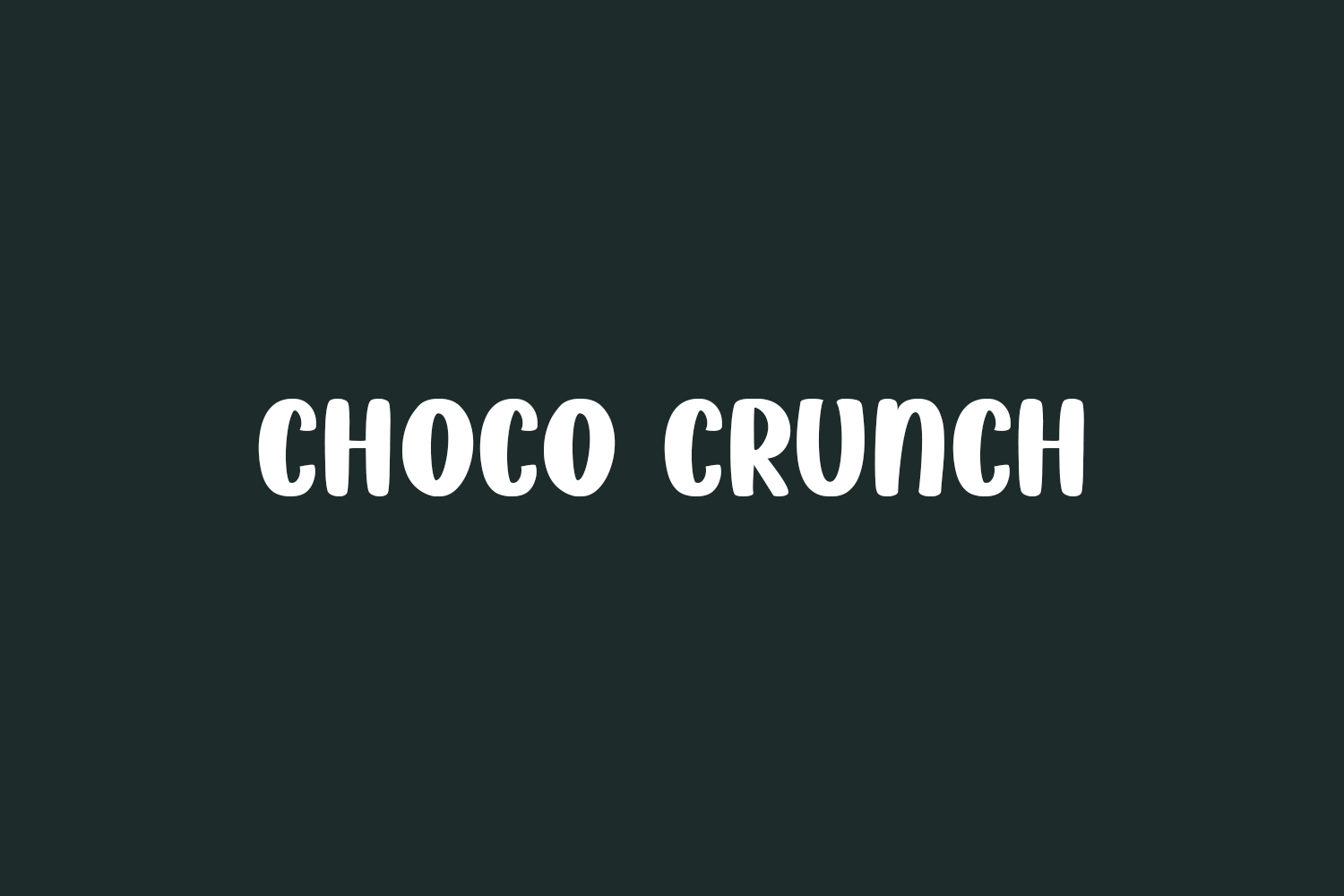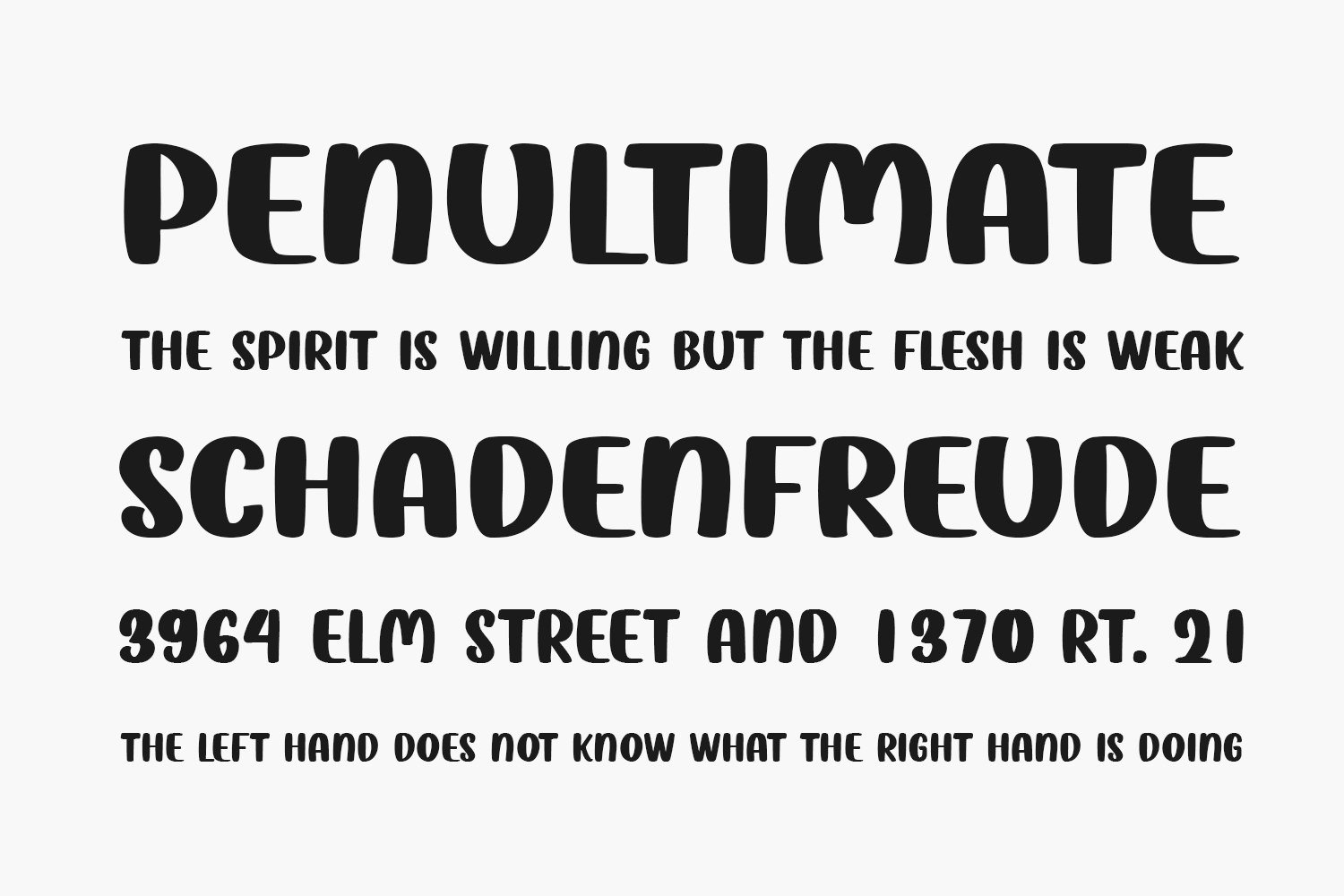
Choco Crunch Free Font is a cool, chunky and friendly display font. Whatever the topic, this font will be a wonderful asset to your font library, as it has the potential to enhance any creation. Choco Crunch Free Font was designed by Fikryal studio and is free for personal use only. Please purchase the full version for commercial use.